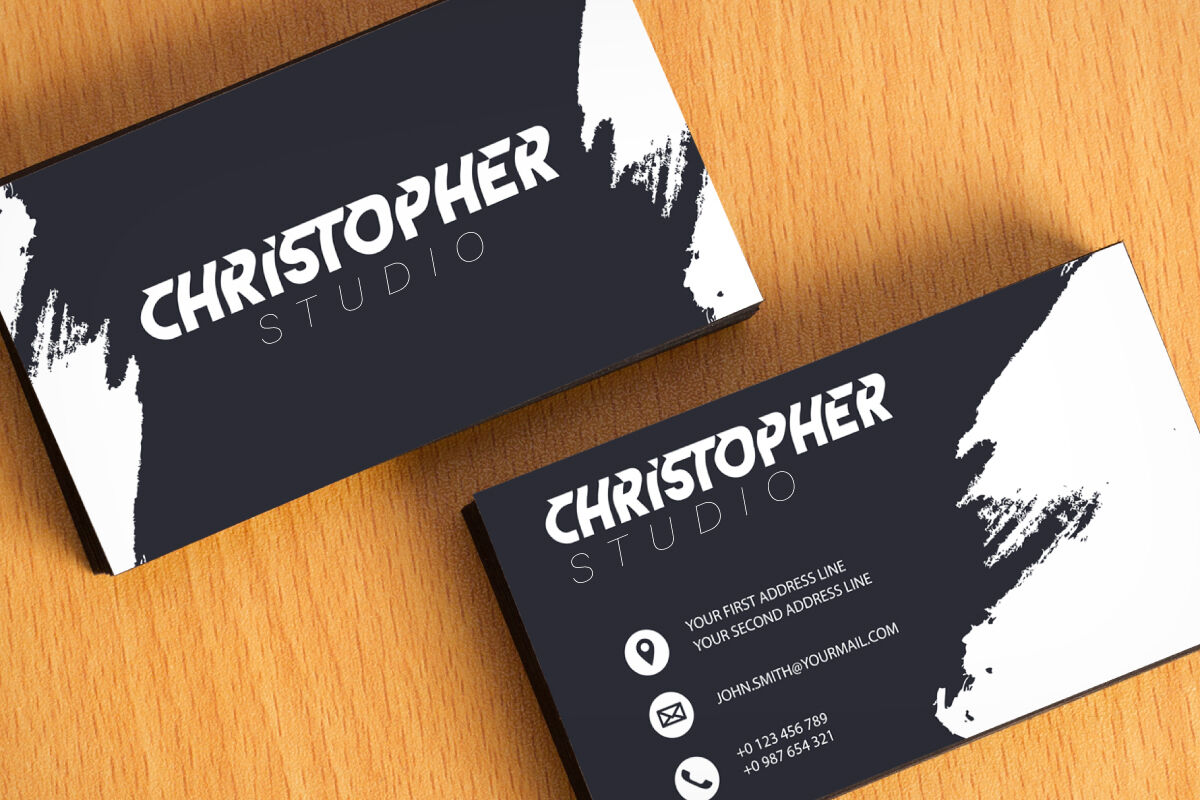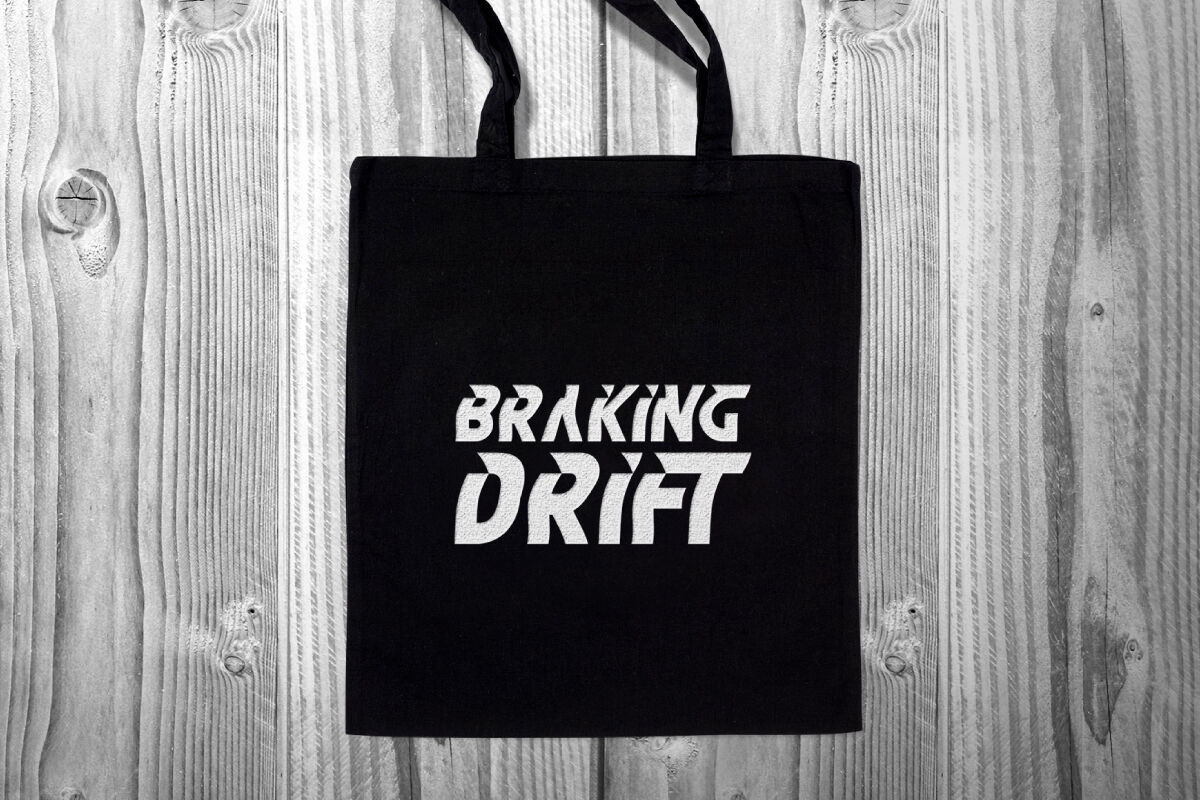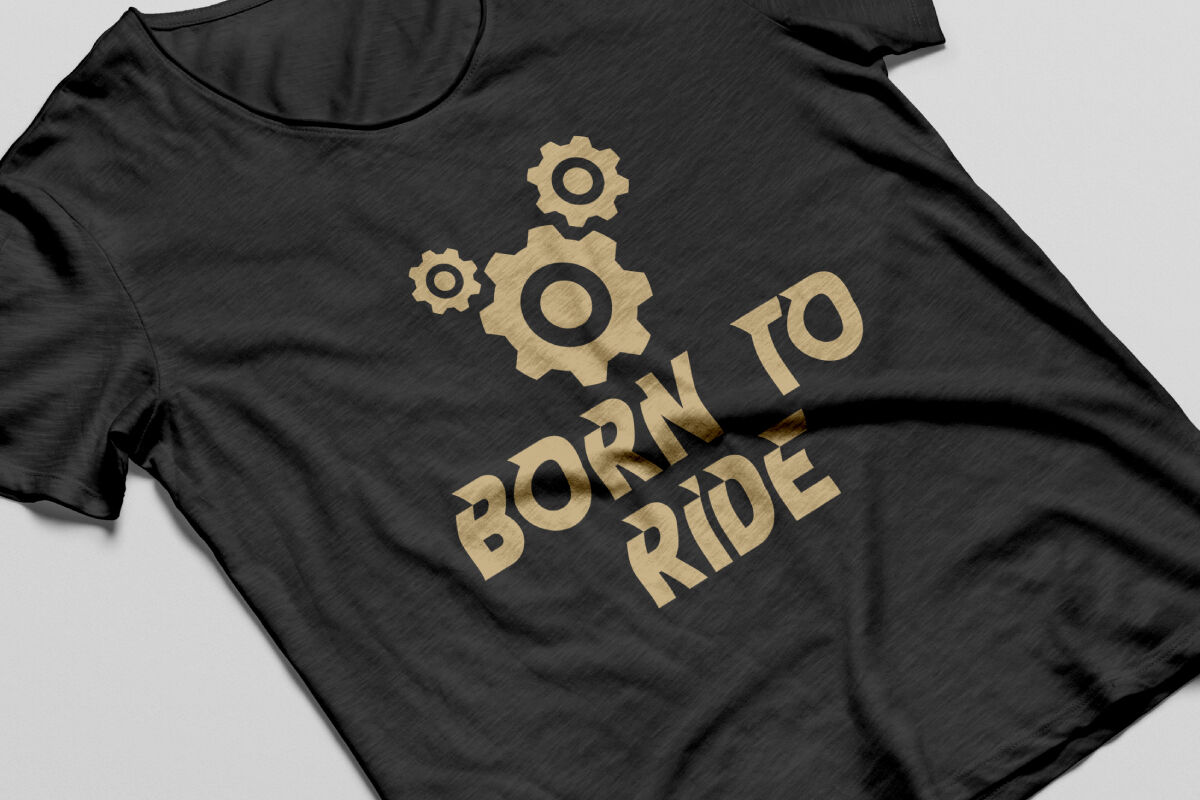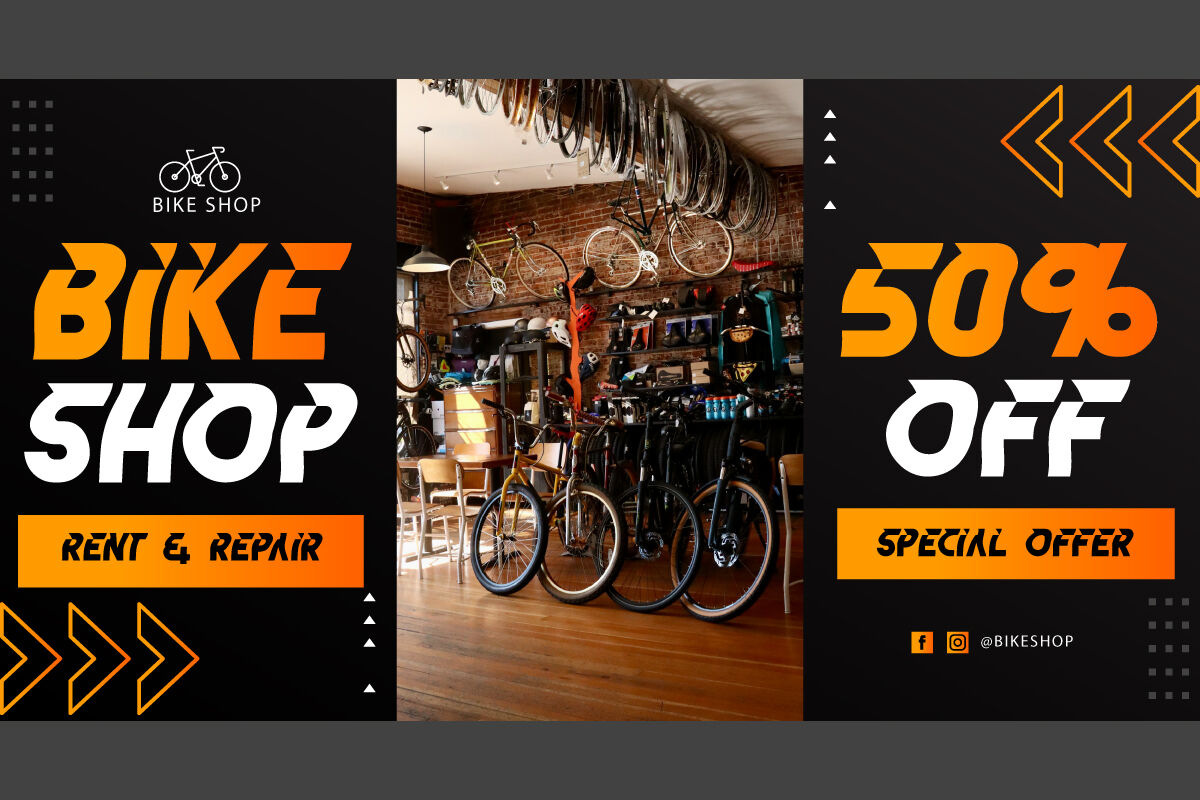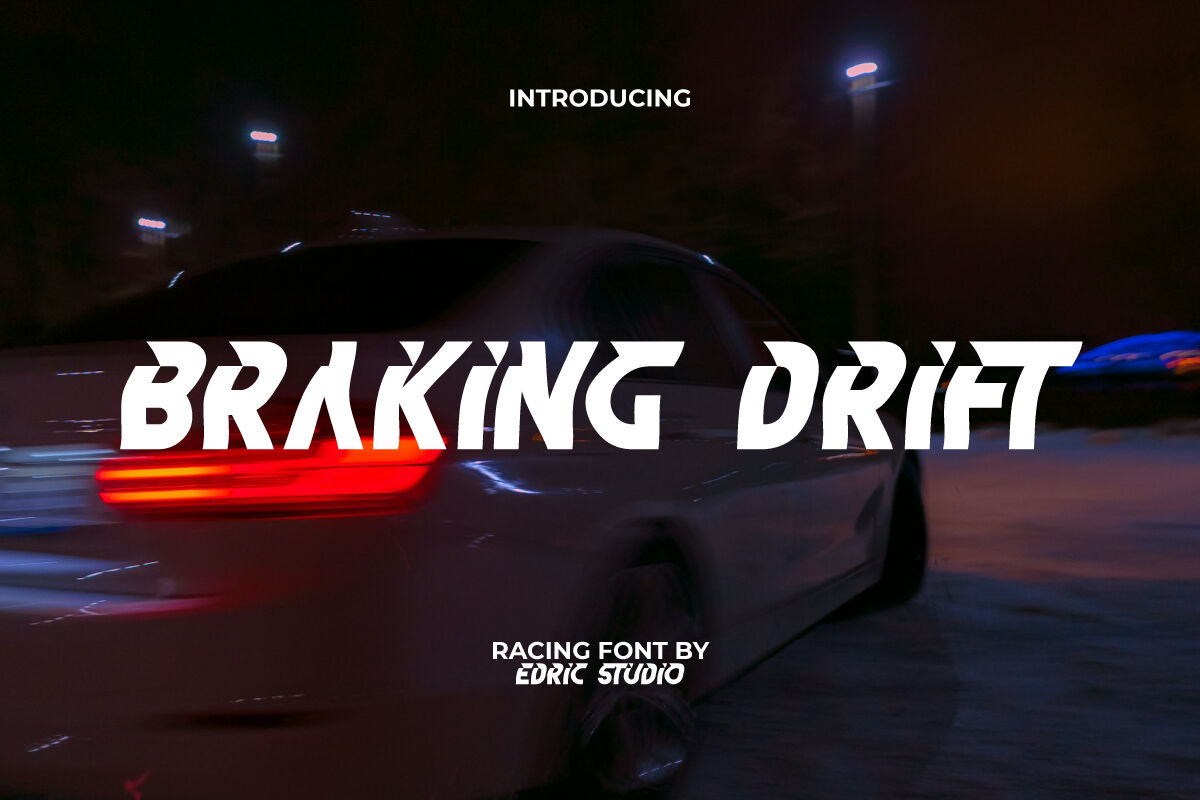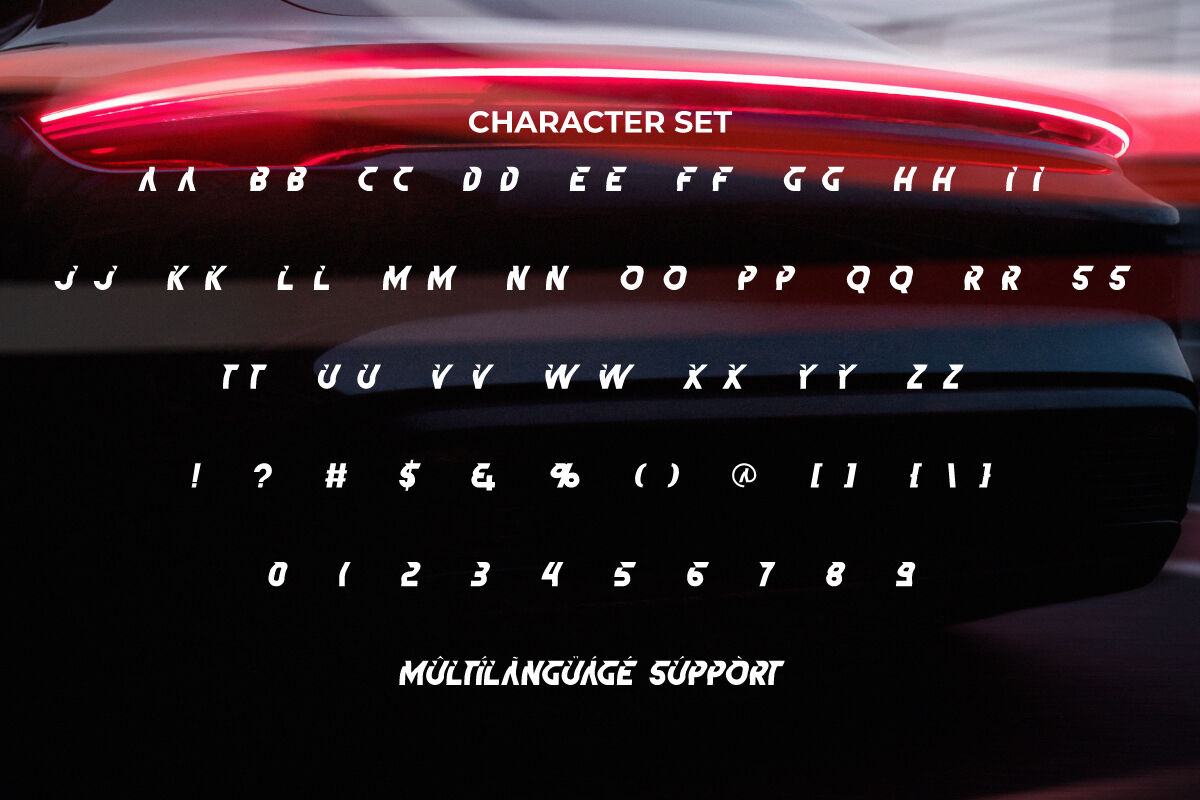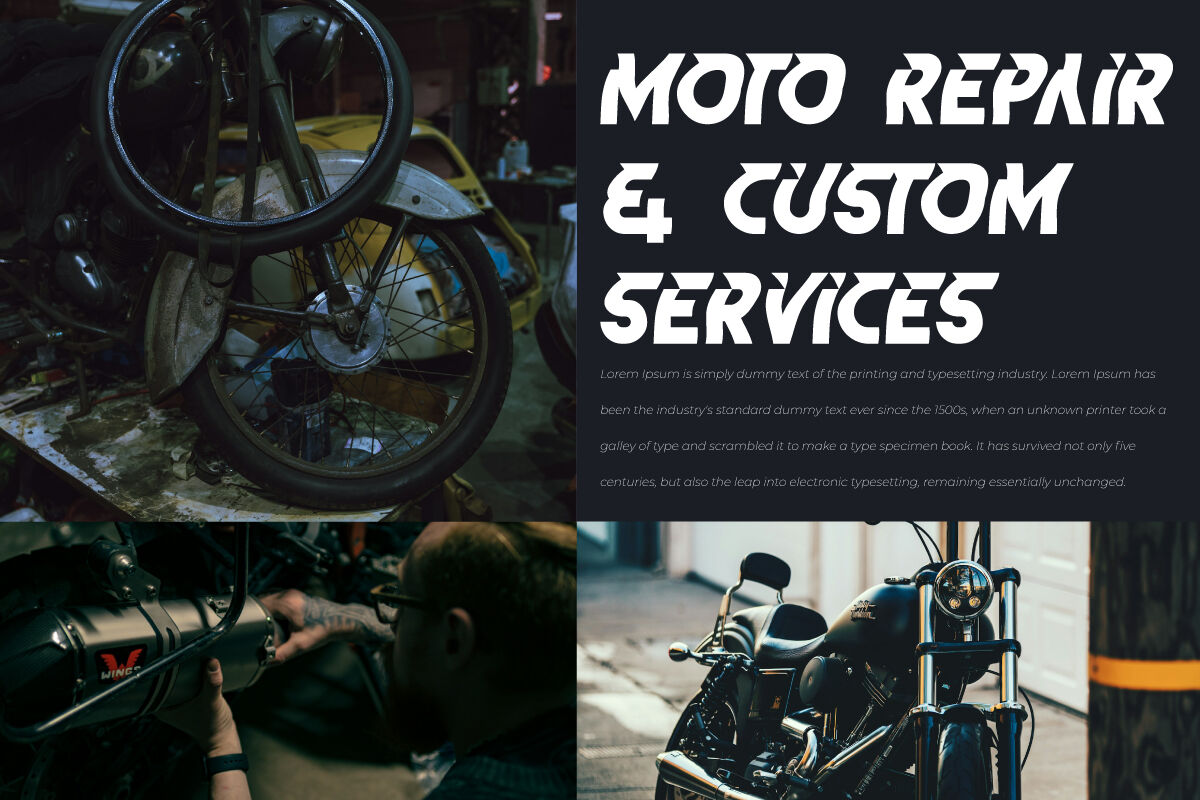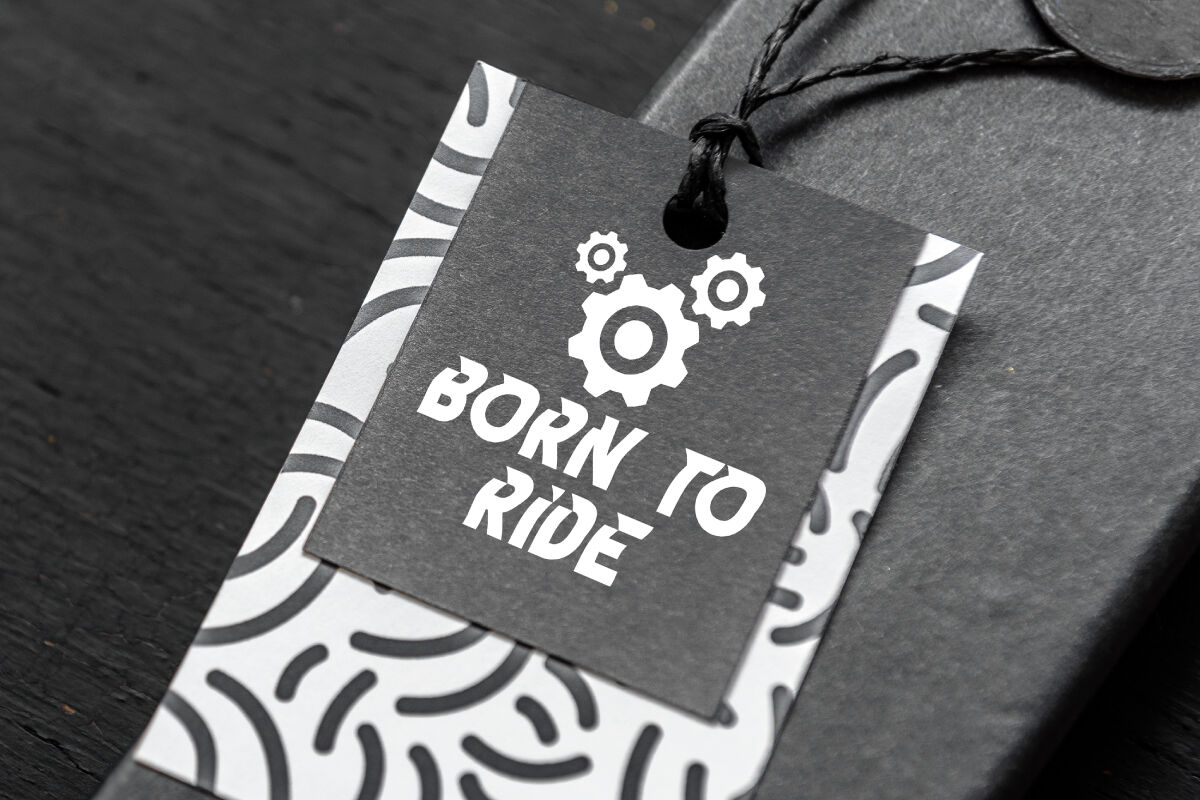
Braking Drift Font is gaming, speed and sporty font with a bold and modern style. The font is also versatile and easy to read both in digital and print as it adds a dynamic touch to your designs. Ideal for eye-catching blogs, brochure, headers, headlines, labels, logos, poster, print materials, as a text, websites and a variety of design projects.
Braking Drift Font is a type of sporty racing font that is really cool because of its authenticity which is truly made unique and the perfect level of font slope makes it have its own appeal. The font includes a complete set of ALL CAPS for both Upper and Lower case letters, Numbers, Punctuation, and Symbols. Use it in your projects in areas such as bicycle, corporate business, clothing brand, graphic design, hi-tech, space, sport, vehicle, virtual reality and many others.
Fuel your design with raw energy using Braking Drift Display Font — a high-octane display font inspired by the fast-paced world of motorsports, drifting, and street racing. Built for creatives who love bold visuals and high-speed aesthetics, this typeface is all about motion, adrenaline, and impact.
Perfect for racing posters, automotive branding, streetwear labels, YouTube thumbnails, and social media graphics, Braking Drift Display Font delivers power and precision in every letter. Its aggressive angles and dynamic flow make it the ideal display font for any project that needs to stand out and race ahead.
With a gritty, modern style and urban influence, this font was designed to dispaly dominance, speed, and attitude. Whether you’re working on a car culture brand, an esports team identity, or a custom decal set, Braking Drift brings your design to life.